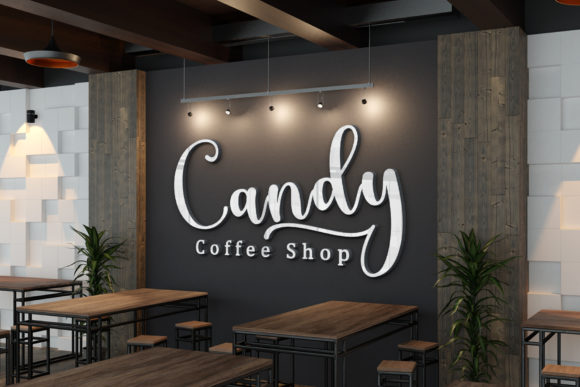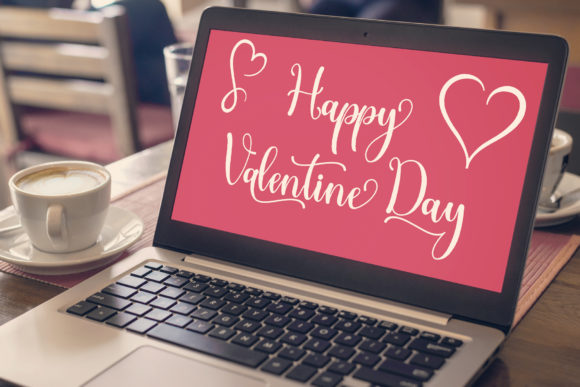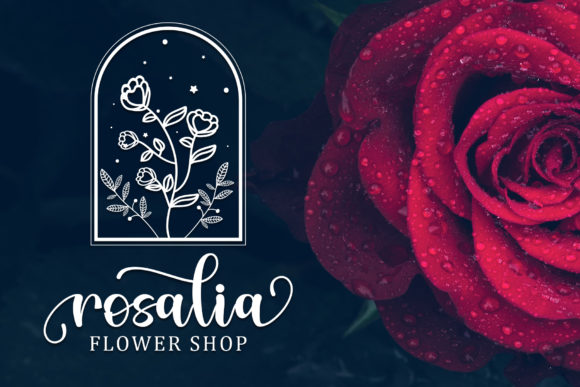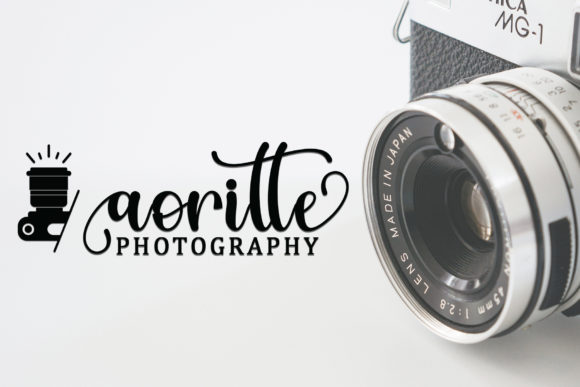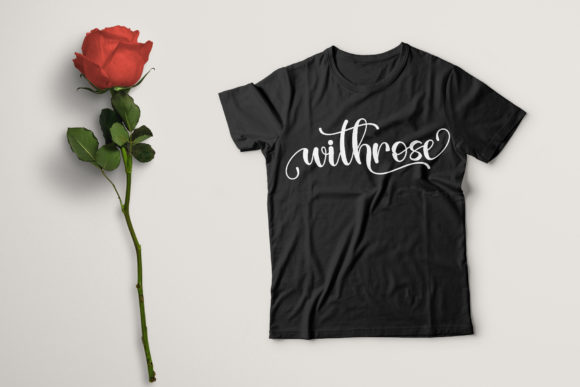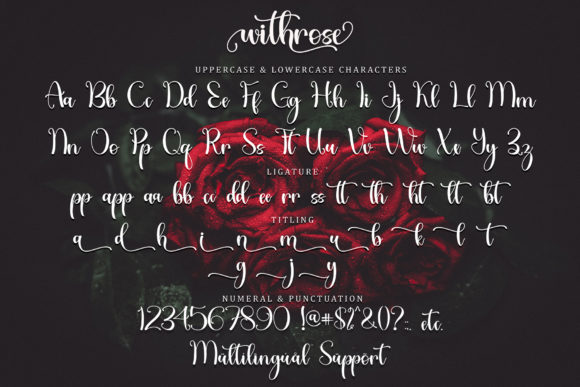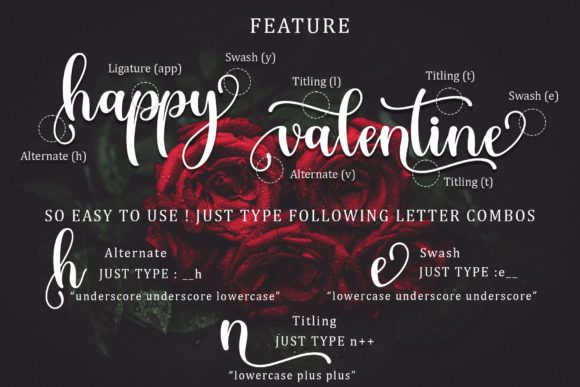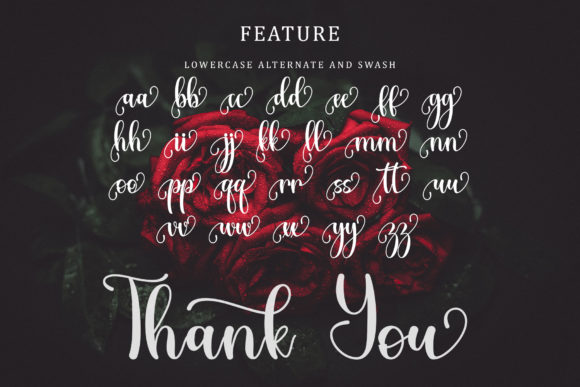
Withrose Font
About Withrose Font
Withrose sounds absolutely captivating! As a romantic and elegant handwritten font, it adds a touch of sophistication and charm to your designs. The distinct and well-rounded letters of Withrose make it a true masterpiece, allowing you to create spectacular designs that leave a lasting impression.
The versatility of Withrose is one of its standout features. Whether you’re designing wedding invitations, logos, branding materials, social media graphics, or any other creative project, this font adapts beautifully to various styles and themes. Its elegant and romantic nature enhances the overall aesthetic, making your designs visually stunning and captivating.
Withrose’s PUA encoding is a valuable feature that provides easy access to a wide range of glyphs and swashes. This allows you to effortlessly incorporate decorative elements and flourishes into your designs, adding an extra layer of customization and creativity. Whether you want to embellish certain letters, create stylish ligatures, or add ornamental swashes, Withrose’s PUA encoding makes it convenient to explore and utilize these design options.
The well-rounded letters of Withrose contribute to its overall elegance and legibility. The smooth curves and balanced forms create a harmonious and pleasing aesthetic, ensuring that your text is easy to read while exuding a sense of refinement.
In summary, Withrose is a romantic and elegant handwritten font that exudes sophistication and charm. Its distinct and well-rounded letters make it a true masterpiece that can elevate your designs to new heights. Enjoy the versatility of Withrose as you create stunning wedding invitations, logos, branding materials, and more. Take advantage of its PUA encoding to access a wide range of glyphs and swashes, adding beautiful decorative elements to your designs. Fall in love with the timeless beauty and versatility of Withrose and let it inspire you to create spectacular designs that leave a lasting impression.